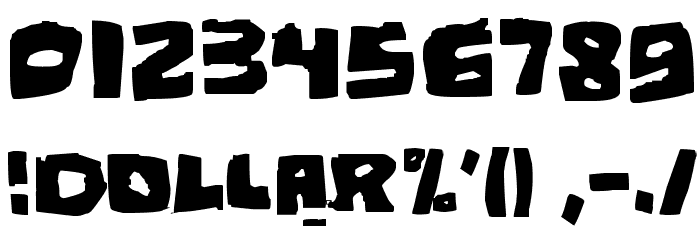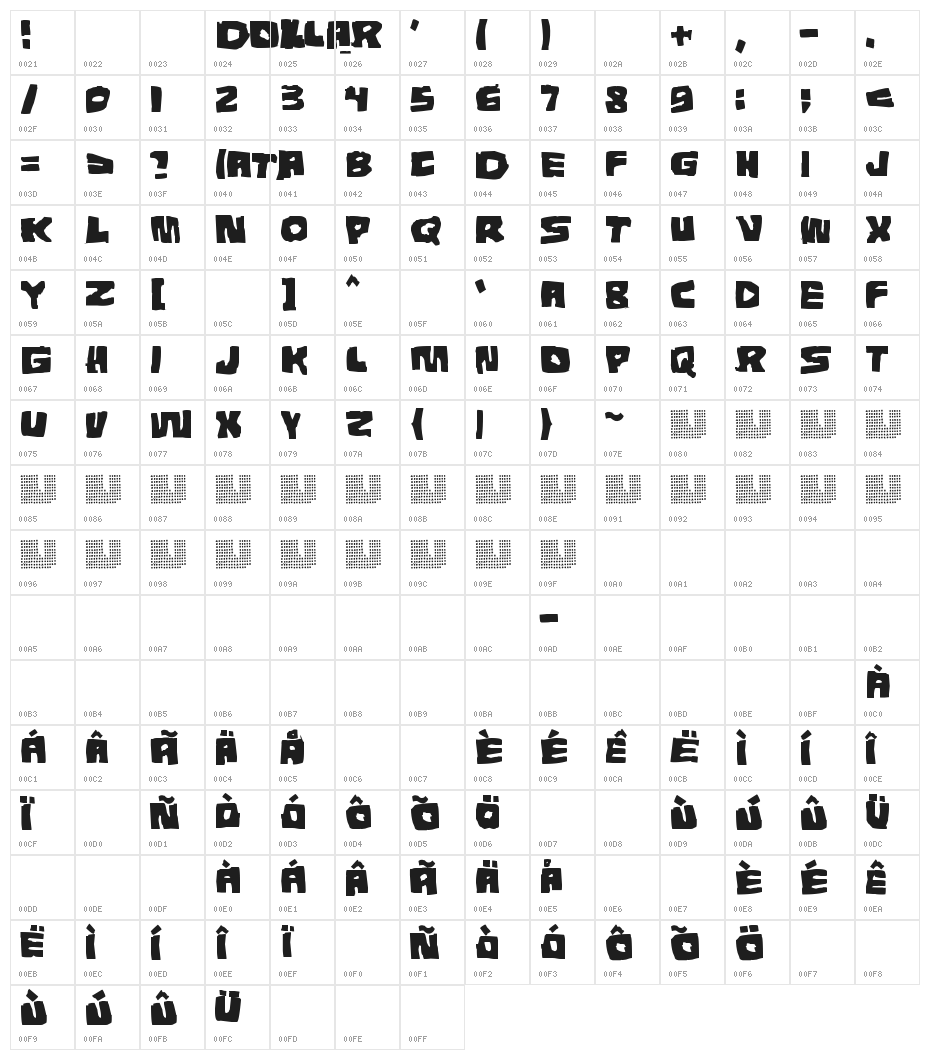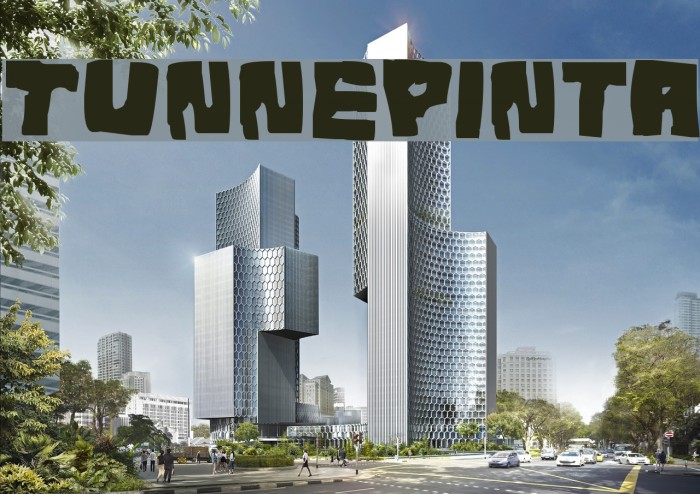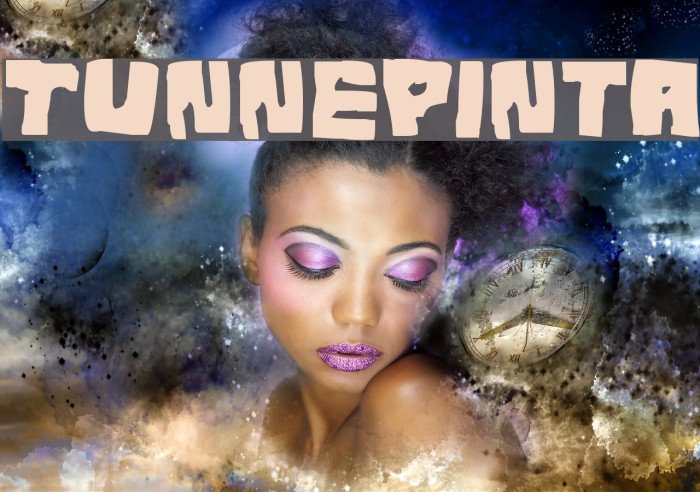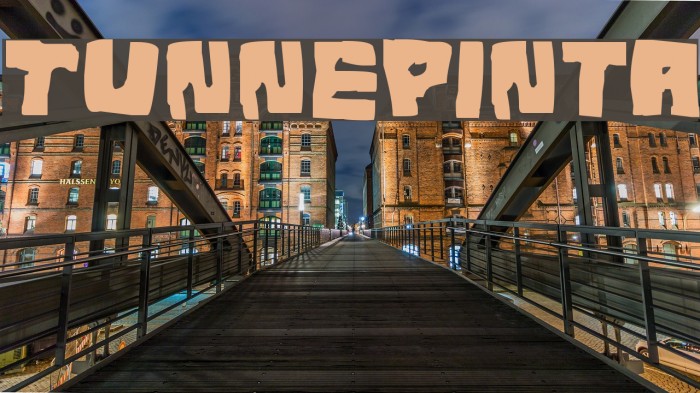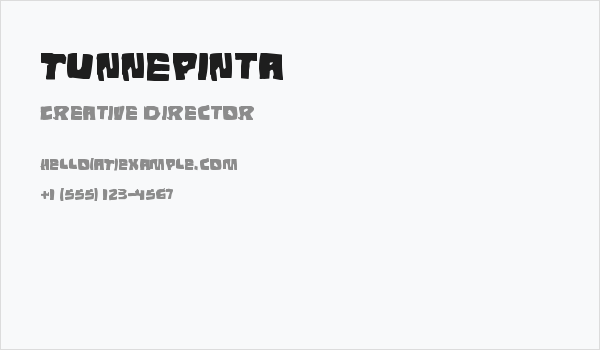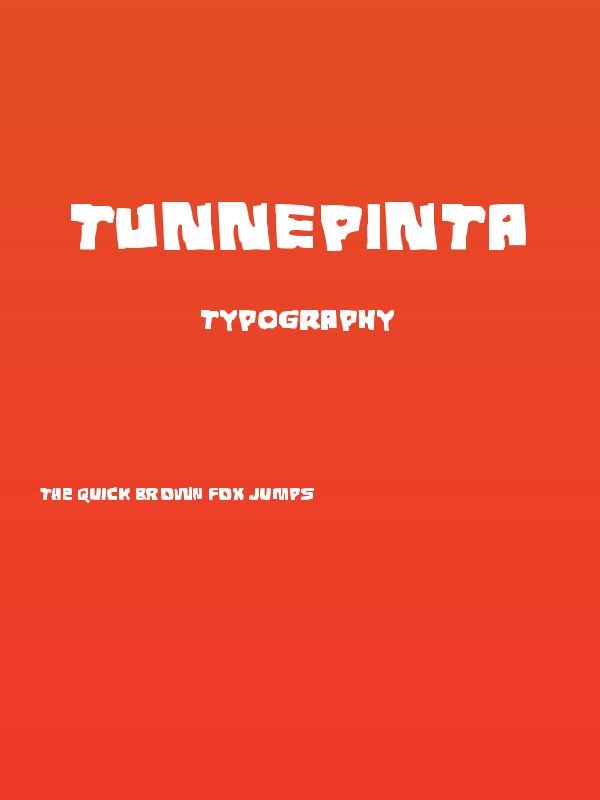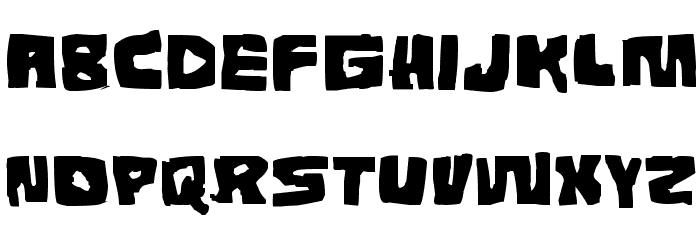
Tunnepinta Font
Tunnepinta Description
This font features a bold, dynamic style with a hand-drawn appearance. The characters are irregular and slightly distorted, giving them a playful and energetic feel. The uppercase and lowercase letters maintain a consistent thickness, contributing to a cohesive look. The numbers and special characters follow the same design principles, ensuring uniformity across all glyphs. The font's unique style makes it stand out, ideal for projects that require a touch of creativity and individuality.
| Overall Style | Playful, Creative |
| Proposed Projects | Perfect for posters, comic books, children's books, and creative branding projects. |